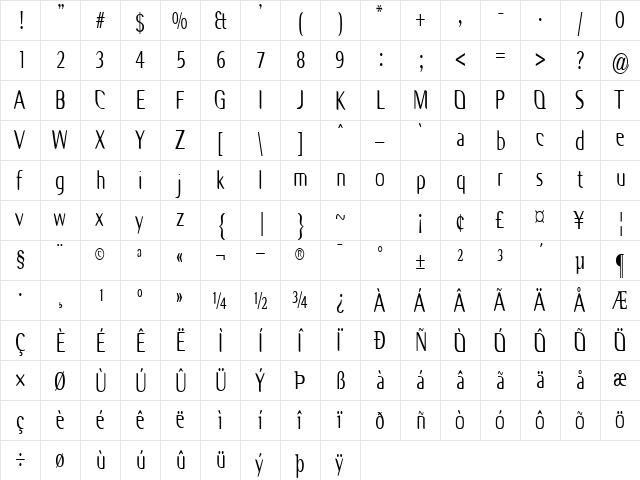
OdysseyCondensed Regular
Design Context for OdysseyCondensed Typeface
OdysseyCondensed is a composed and adaptable typeface that performs quietly and consistently across a wide range of design contexts. The condensed width makes it efficient for tight spaces without sacrificing legibility.